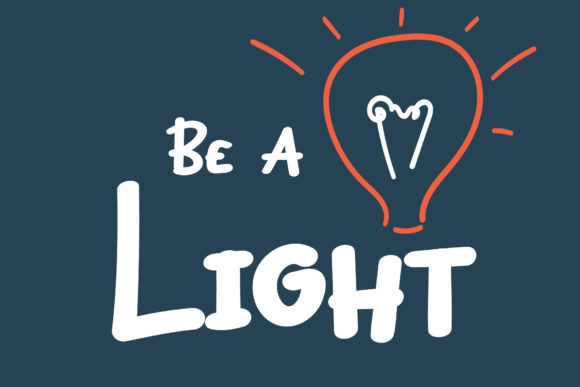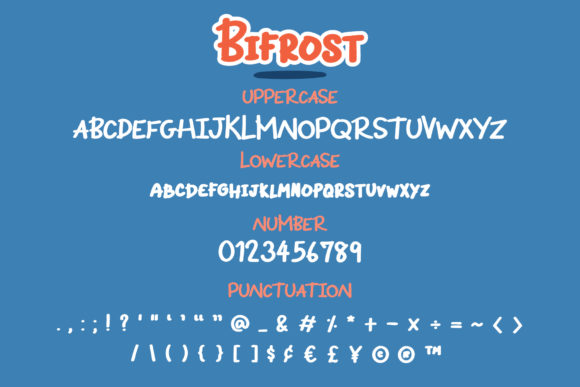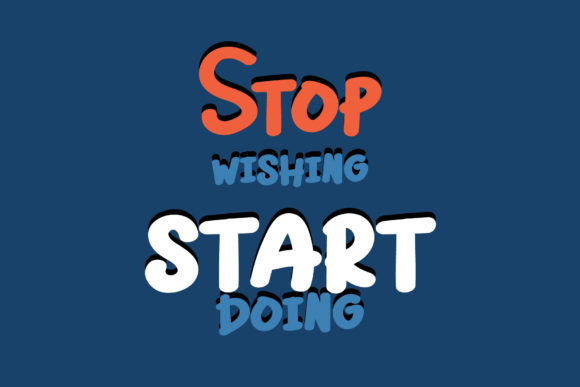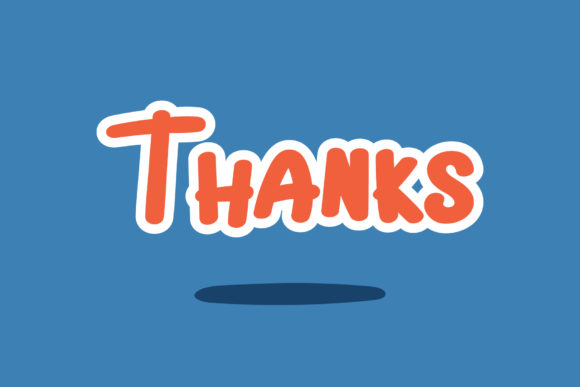
The Bifrost Font: A Bold, Beautiful Choice for Your Designs
I still remember the struggle of working on a project, trying to find the perfect font to bring my design to life. My client wanted something bold, yet down-to-earth; something that would stand out on a busy background, but still be easy to read. It was then that I stumbled upon the Bifrost font, and let me tell you, it was love at first sight! 💕
The Bifrost font is a bold, handwritten font that’s been carefully crafted to become a true favorite among designers. Its casual charm makes it appear wonderfully down-to-earth, readable, and incredibly versatile. Whether you’re working on a busy background or using it as a standalone headline, Bifrost is sure to impress.
An Honest Review of Bifrost
What I Love About Bifrost
- ✨ Unique Character: Bifrost has a distinct personality that sets it apart from other fonts.
- ✅ Readability: Despite being a bold font, Bifrost remains surprisingly easy to read, even on smaller sizes.
- 💡 Versatility: This font can be used in a wide range of contexts, from headings and titles to body text.
- 🎨 Customization Options: Bifrost supports OpenType features, glyphs, and stylistic alternates, giving you plenty of creative freedom.
While Bifrost is an amazing font, there are a few things to keep in mind:
- 🤔 Limited Use in Formal Contexts: Due to its bold and playful nature, Bifrost might not be the best choice for formal documents or professional settings.
- ⚠️ Busy Backgrounds: While Bifrost can handle busy backgrounds, it’s essential to choose a background that complements the font’s boldness.
The Story Behind Bifrost
Bifrost was designed with the intention of creating a font that’s both bold and beautiful. The designer wanted to craft a font that would be perfect for creative projects, such as posters, flyers, and social media graphics. With its unique character and versatility, Bifrost has become a favorite among designers and crafters alike.
| Font Name | Bifrost Font |
| Author | Wanida Toffy |
Q: What is the Bifrost font best used for?
A: Bifrost is best used for creative projects, such as posters, flyers, social media graphics, and headings.
Q: Does Bifrost support OpenType features?
A: Yes, Bifrost supports OpenType features, including ligatures, stylistic alternates, and glyphs.